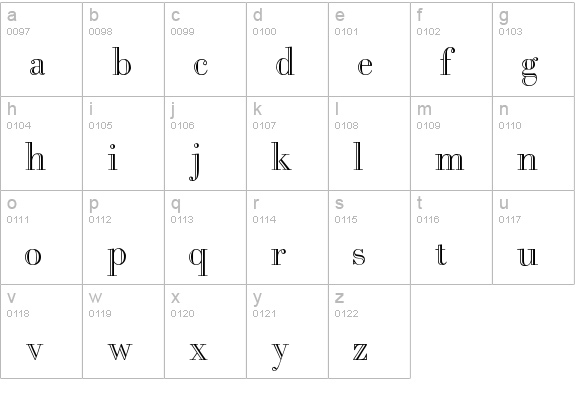
Faust font is a captivating and elegant typeface that exudes sophistication and charm. With its unique blend of classic and modern design elements, Faust font is perfect for adding a touch of luxury to any project. The sleek lines and graceful curves of this font make it a standout choice for branding, headlines, invitations, and more. What's even better is that Faust font is available for free download at FontsMarket.com. This means you can easily add this stunning font to your collection without any cost. Don't miss out on the opportunity to elevate your designs with the timeless beauty of Faust font. Download it today and let your creativity shine!